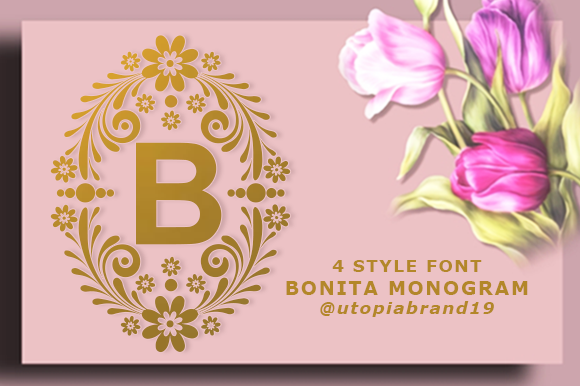
The Magic of Bonita Monogram Font: Elevate Your Designs with Elegance
I’ll never forget the moment I stumbled upon the perfect font for a wedding invitation project. I was working late, surrounded by design samples and sipping cold coffee, when I realized that the font I’d been searching for was hiding in plain sight. It was Bonita Monogram Font, a dainty and unique decorative font that instantly added a touch of romance and sophistication to my design. In this article, I’ll share my experience with Bonita Monogram, its features, and how to make the most of it in your designs.
An Honest Review of Bonita Monogram Font
• ✨ Romantic and Lovely Aesthetic: Bonita Monogram Font has a distinct charm that makes it perfect for love letters, wedding invitations, and other designs that require a touch of elegance.
• ✅ PUA Encoded: The font is PUA encoded, which means you can easily access all the glyphs and swashes to take your designs to the next level.
• 💫 Versatility: Whether you’re working on a digital project or a print design, Bonita Monogram Font adapts beautifully to different contexts.
While Bonita Monogram Font is a stunning addition to any design, there are a few things to keep in mind:
• ⚠️ Legibility at Small Sizes: Like many decorative fonts, Bonita Monogram can become tricky to read at very small sizes. It’s best used at larger sizes where its details can shine.
• 🤔 Pairing with Other Fonts: Due to its distinctive style, you’ll want to choose complementary fonts that don’t compete with Bonita Monogram’s elegance.
A Practical Guide to Using Bonita Monogram Font
If you’re looking for fonts with a similar vibe to Bonita Monogram, consider these alternatives:
• Alex Brush: A beautiful script font with a hand-painted feel, perfect for designs that need a more rustic, personal touch.
• Great Vibes: A modern script font with elegant swashes, great for headings and titles that require a bit of flair.
• Lust Script: A luxurious and modern script font, ideal for high-end branding and designs that exude sophistication.
• Allura: A lovely, elegant script font suitable for a wide range of designs, from wedding invitations to business branding.
The Story Behind Bonita Monogram Font
While the origins of Bonita Monogram might be shrouded in mystery, it’s easy to imagine a designer inspired by vintage love letters and classic wedding invitations. The creator likely aimed to craft a font that felt both nostalgic and timeless, with a unique flair that sets it apart from more common scripts.
Q: What makes Bonita Monogram Font special?
A: Its romantic aesthetic, PUA encoding for easy access to glyphs and swashes, and versatility across different design projects.
Q: Can Bonita Monogram Font be used for both digital and print designs?
A: Absolutely! Its high-quality design ensures it looks great in both digital formats and print.